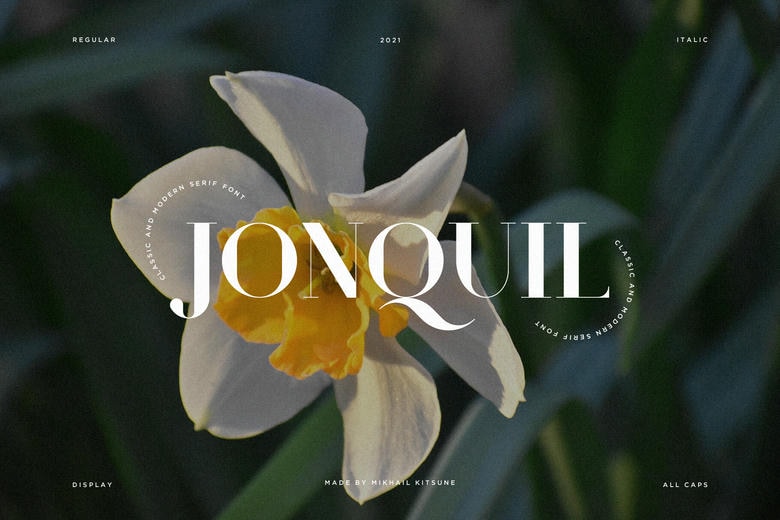
Jonquil Font
Jonquil is a timeless serif font that blends classic elegance with a modern touch. Its refined letterforms make it an excellent choice for website and magazine headers, logos, branding, editorial typography, and more.
Versatile and sophisticated, Jonquil adds a polished feel to any design. It also pairs beautifully with clean sans serif fonts, creating a balanced and visually engaging contrast in your typographic compositions.
Jonquil Serif Font